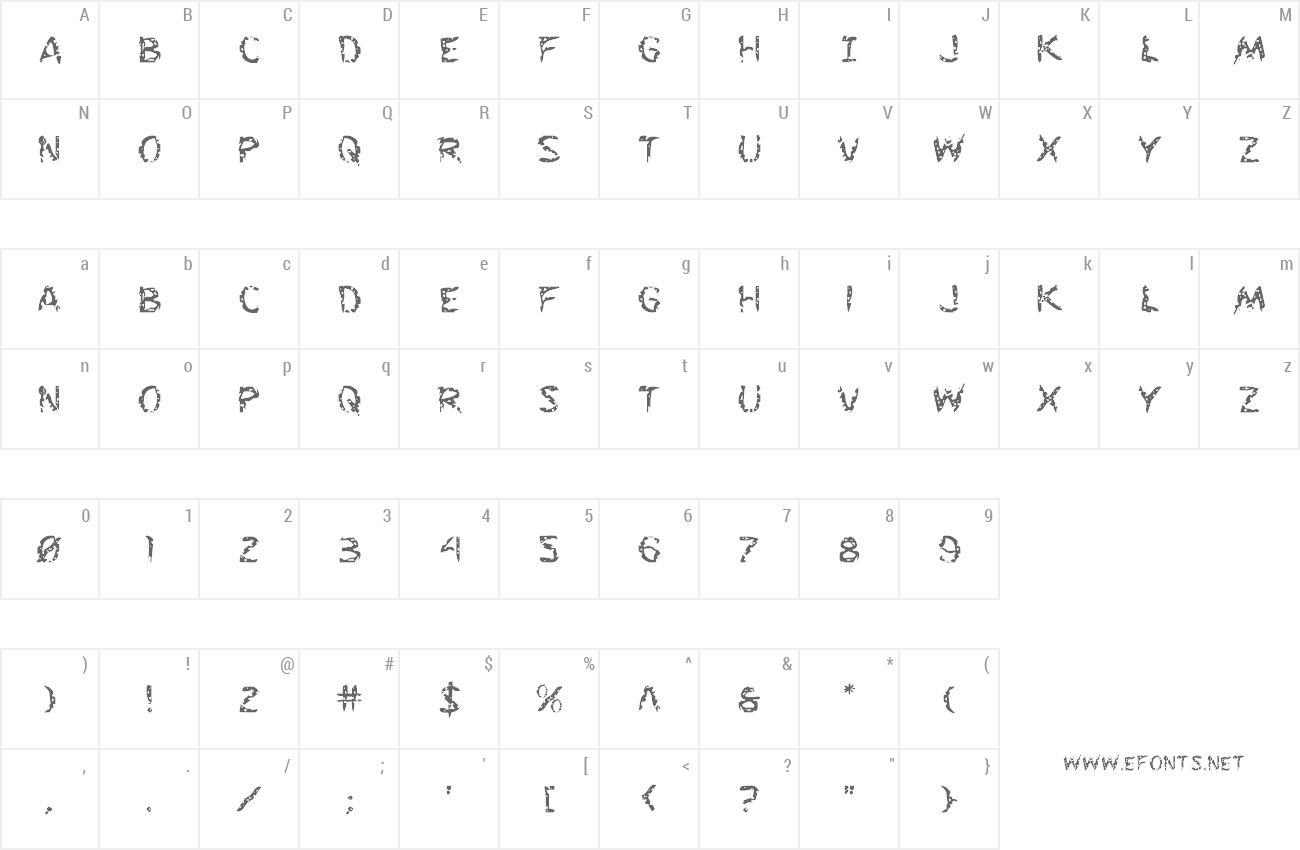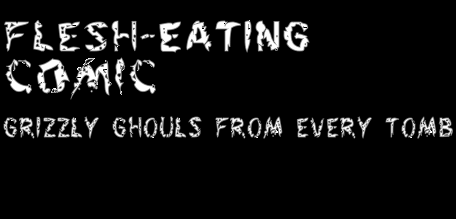
Preview and download Flesh-Eating Comic Font. Created by Iconian Fonts in Fancy Horror styles with Donationware license.
Flesh Eating Comic is a comic book lettering font that's been infected by a zombie virus and is partially eaten away! Comes with a full character set and the Euro. For information on commercial usage, please visit www.iconian.com/commercial.html |